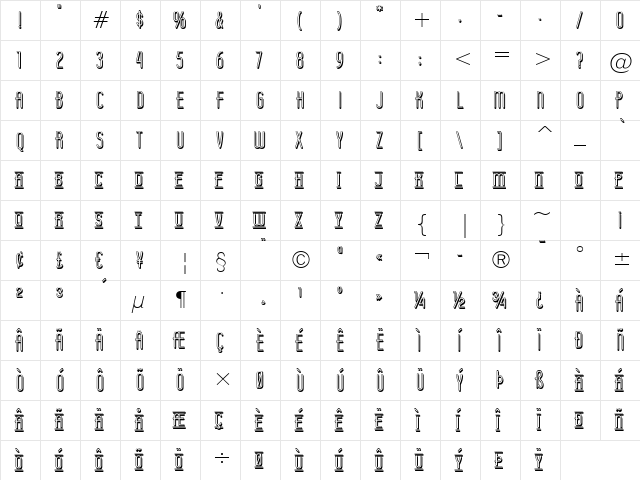
Operator Nine BTN Shadow Lined Regular
Design Context for Operator Nine BTN Shadow Lined Typeface
Operator Nine BTN Shadow Lined brings ornamental detail and strong personality to headlines and identities, where visual impact matters more than quiet functionality.
Font Pairing: Pair with a clean neutral sans-serif for body copy to let Operator Nine BTN Shadow Lined's character lead without overwhelming the composition.
Pro Tip: Treat Operator Nine BTN Shadow Lined as the centrepiece of your typographic hierarchy. One strong heading set in a decorative face can carry an entire layout.